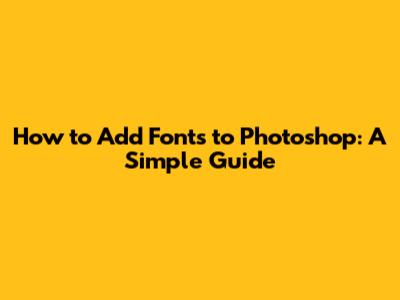
- Google Fonts: A fantastic resource for free, open-source fonts that are easy to use and web-friendly.
- Adobe Fonts: If you have an Adobe Creative Cloud subscription, you have access to a vast library of high-quality fonts that you can easily sync with Photoshop.
- Font Squirrel: Another great source for free, commercially licensed fonts.
- Creative Market: A marketplace with a wide variety of premium fonts, graphics, and other design assets.
- Locate the font file (usually in your Downloads folder).
- Right-click on the font file (
.otfor.ttf). - Select "Install" from the context menu. You might need administrator privileges to install the font.
- Alternatively, you can double-click the font file to open it in the Font Viewer, and then click the "Install" button at the top.
- Locate the font file (usually in your Downloads folder).
- Double-click the font file (
.otfor.ttf). This will open the Font Book application. - Click the "Install Font" button at the bottom of the Font Book window.
- Open Photoshop and create a new document or open an existing one.
- Select the Type Tool (the "T" icon) from the toolbar.
- Click on your canvas to create a text layer.
- In the Character panel (Window > Character), click on the font dropdown menu.
- Scroll through the list to find your newly installed font. You can also type the font name in the search bar to quickly locate it.
- Select the font and start typing! You can now use your new font to create awesome designs.
- Font Doesn't Appear in Photoshop:
- Make sure you've restarted Photoshop after installing the font. This is the most common solution.
- Check that the font is properly installed on your computer. You can verify this by opening the Font Book (macOS) or the Fonts folder in the Control Panel (Windows).
- If you're using Adobe Fonts, make sure you're signed in to your Adobe Creative Cloud account and that font syncing is enabled.
- Font Appears Garbled or Distorted:
- This could be due to a corrupted font file. Try downloading the font again from a reliable source.
- Make sure the font is compatible with your operating system and Photoshop version.
- Try clearing your Photoshop font cache. To do this, close Photoshop, navigate to your Photoshop preferences folder, and delete the "CT Font Cache" file. Restart Photoshop and see if that fixes the issue.
- Font is Missing Characters:
- Some fonts may not include all the characters you need. Check the font's character map to see which characters are available.
- Try using a different font that supports the characters you need.
- Consider Your Brand: Your fonts should reflect your brand's personality and values. If you have a serious and professional brand, opt for clean and classic fonts. If you have a fun and playful brand, choose fonts that are more whimsical and creative.
- Think About Readability: Make sure your fonts are easy to read, especially for body text. Avoid overly decorative or complex fonts that can be difficult to decipher.
- Use Font Pairings: Combine different fonts to create visual interest and hierarchy. A common approach is to use a bold and eye-catching font for headlines and a clean and readable font for body text. You can find font pairing suggestions on websites like FontPair and Canva's Font Combinations tool.
- Don't Overdo It: Stick to a limited number of fonts in your designs (usually two or three). Using too many fonts can make your designs look cluttered and unprofessional.
- Experiment and Have Fun: Don't be afraid to try out different fonts and see what works best for your designs. The more you experiment, the better you'll become at choosing the right fonts.
Hey guys! Ever felt like your Photoshop projects are missing that special something? Chances are, you need some fresh, eye-catching fonts! Adding new fonts to Photoshop can completely transform your designs, making them stand out and giving them a unique personality. Whether you're creating stunning social media graphics, designing a professional logo, or just experimenting with typography, having a diverse collection of fonts is essential. In this guide, we'll walk you through the simple steps to install fonts on your computer and make them available in Photoshop. So, let's dive in and give your designs the fontastic upgrade they deserve!
Why Add Fonts to Photoshop?
Before we get into the how-to, let's talk about why adding fonts to Photoshop is so important. Think of fonts as the voice of your design. A playful, handwritten font can give your project a friendly and approachable vibe, while a sleek, sans-serif font can convey professionalism and modernity. The right font can enhance your message, attract attention, and create a lasting impression. Photoshop comes with a decent selection of fonts, but it's just the tip of the iceberg. By adding new fonts, you open up a world of creative possibilities. You can find fonts that perfectly match your brand's aesthetic, create unique and eye-catching headlines, and add personality to your designs. Plus, it's a great way to stay ahead of the curve and experiment with the latest design trends. Seriously, guys, don't underestimate the power of a good font! It can be the difference between a mediocre design and a show-stopping masterpiece.
Step-by-Step Guide to Adding Fonts
Alright, let's get down to business! Adding fonts to Photoshop is actually a pretty straightforward process. Here's a step-by-step guide to get you started: